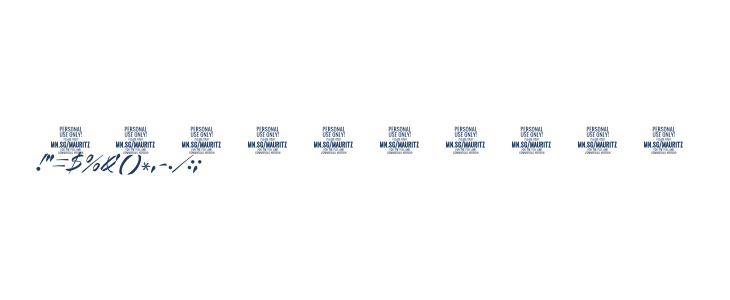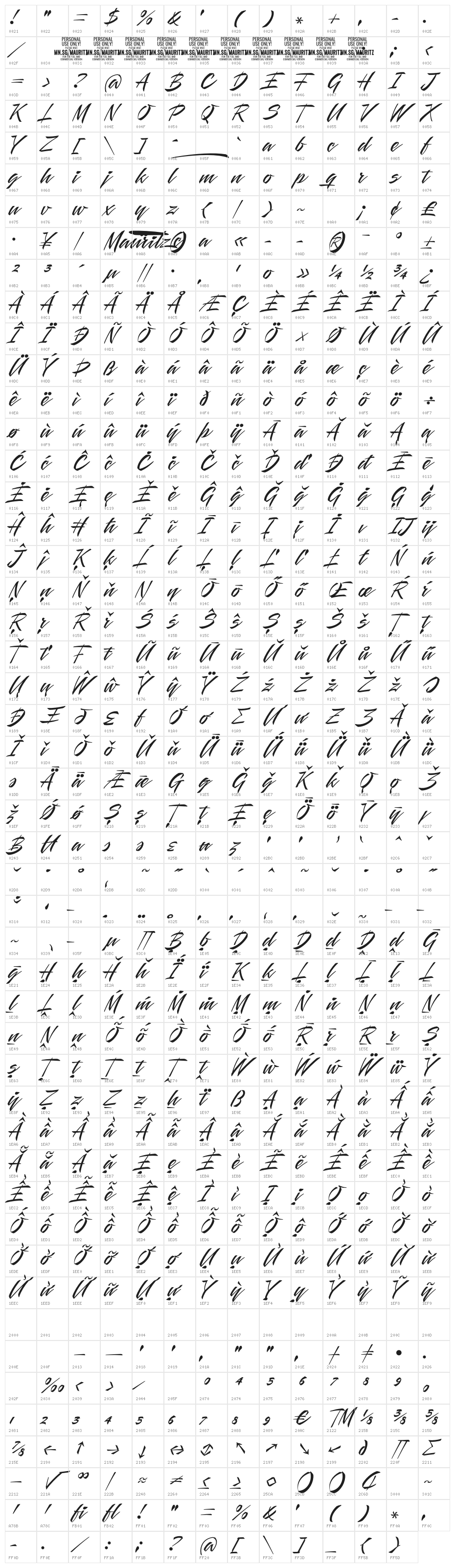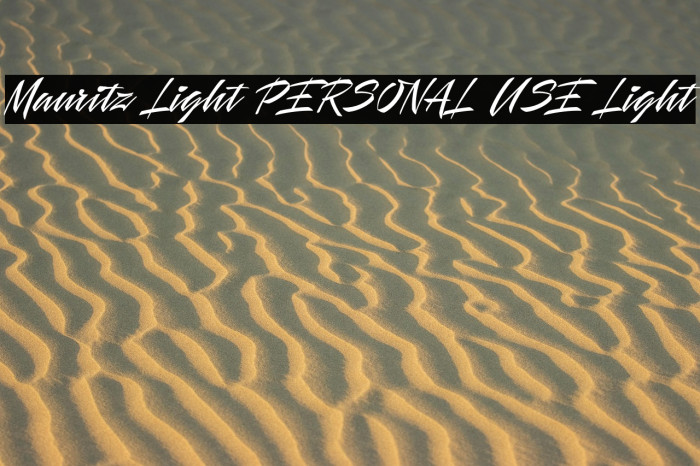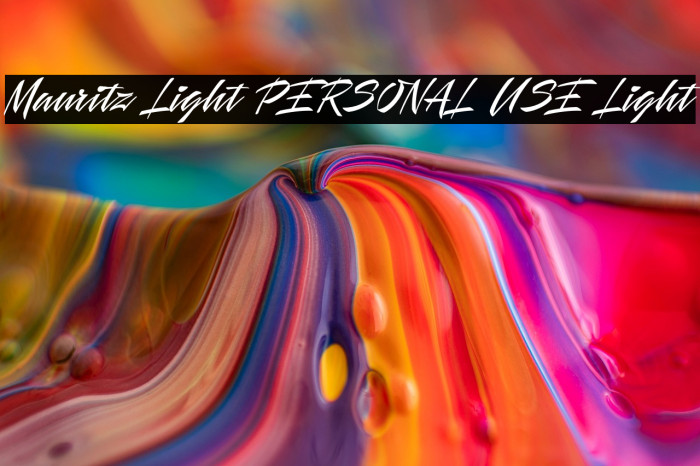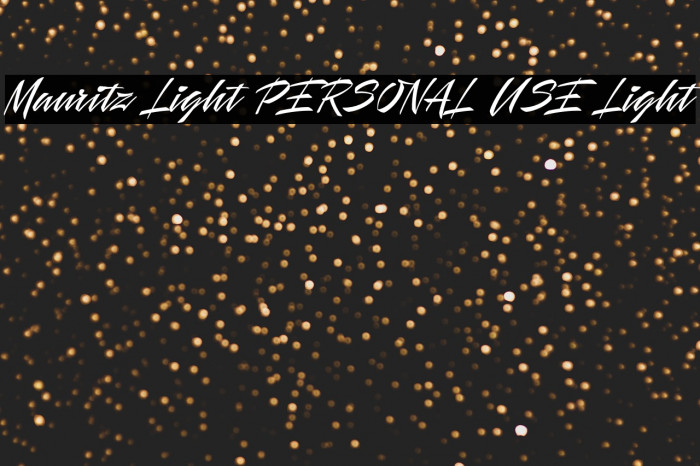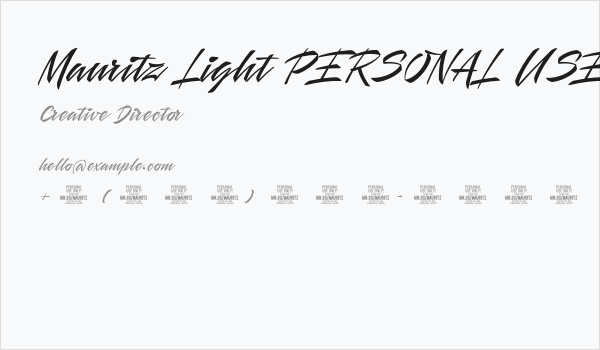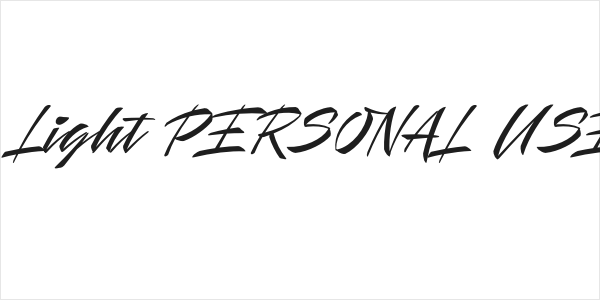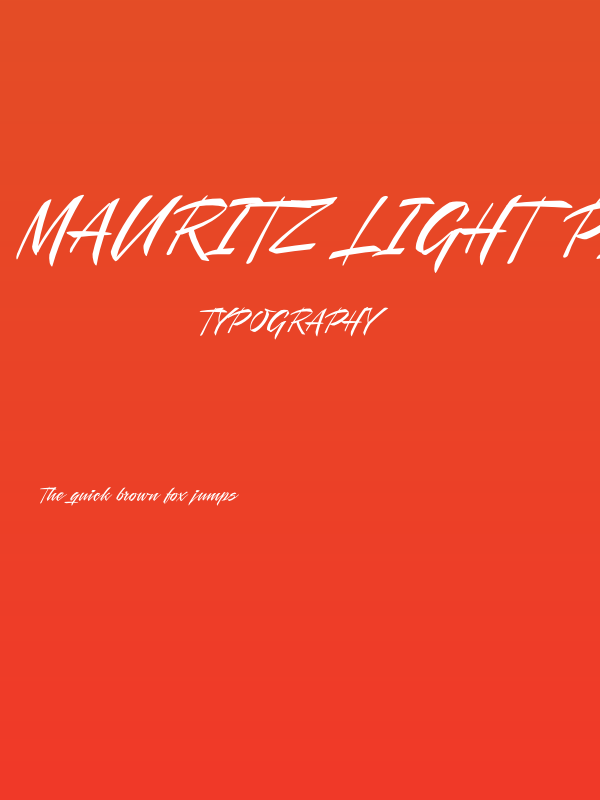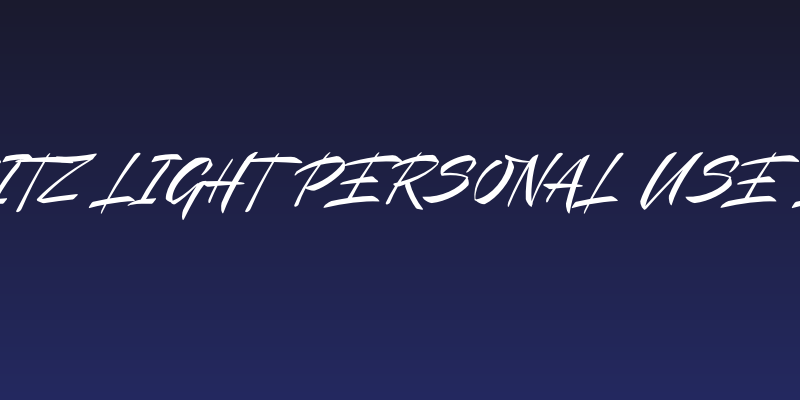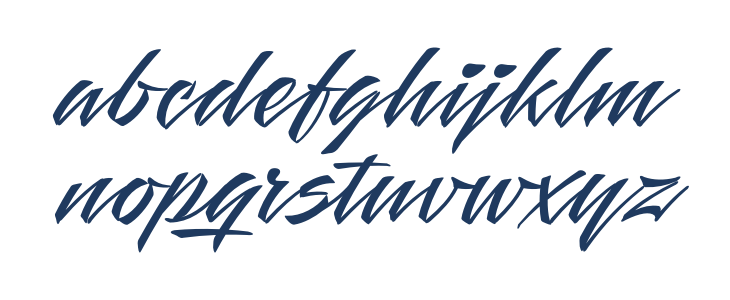
Mauritz Light PERSONAL USE Light Font
Mauritz Light PERSONAL USE Light Description
This font features a dynamic and expressive script style with a modern flair. The letters are designed with a flowing, cursive aesthetic that conveys elegance and movement. The strokes are bold and confident, with a slight slant that adds to the sense of motion. The uppercase letters are particularly striking, with unique flourishes and a sense of individuality. The lowercase letters maintain the same energetic style, ensuring consistency throughout. Special characters are included, matching the overall aesthetic with their bold and stylish appearance.
| Proposed Projects | Ideal for branding, invitations, and artistic projects where a personal touch is desired. |